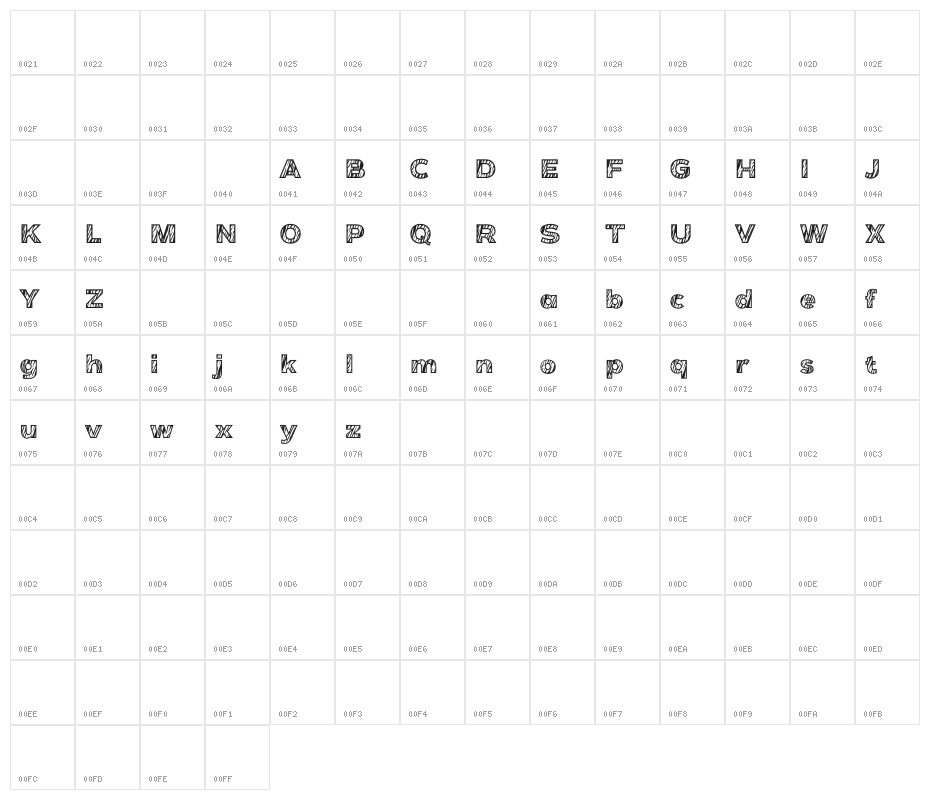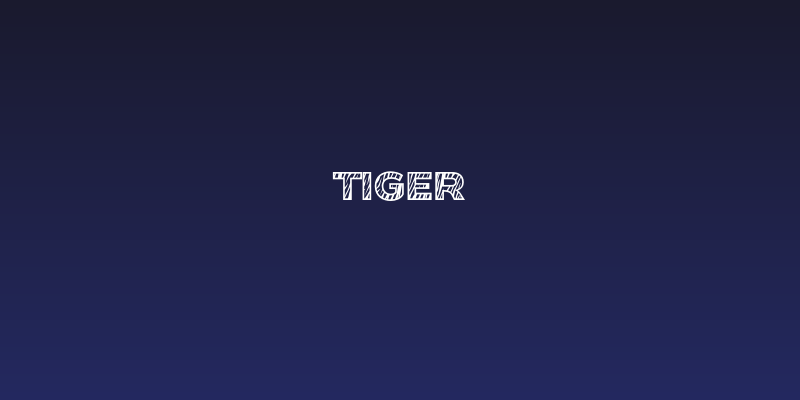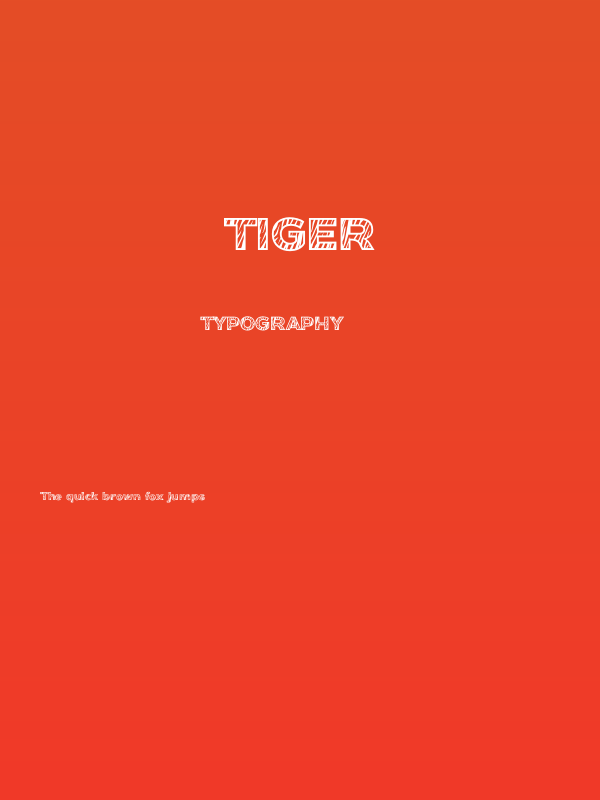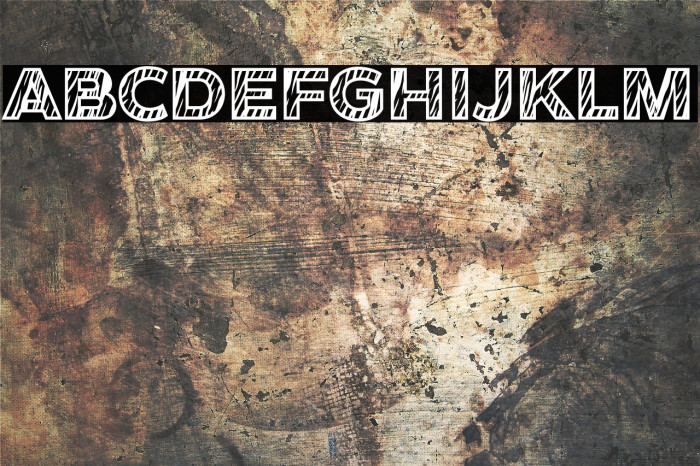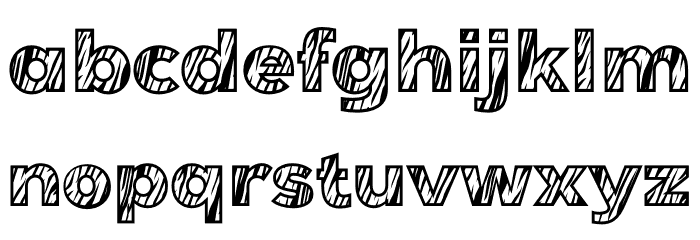
Tiger Font
Tiger Description
This font features a bold, decorative style with a unique striped pattern filling each character. The uppercase and lowercase letters maintain a consistent width, creating a uniform appearance across the alphabet. The design is playful yet structured, making it suitable for eye-catching displays. The characters are well-defined with clear edges, and the internal pattern adds a dynamic texture that enhances visual interest. The font's style is reminiscent of vintage or retro designs, offering a nostalgic feel while remaining modern and fresh. Its distinctive look makes it ideal for creative projects that require a touch of whimsy and boldness.
| Proposed Projects | Perfect for posters, headlines, branding, and any project needing a bold, playful touch. |